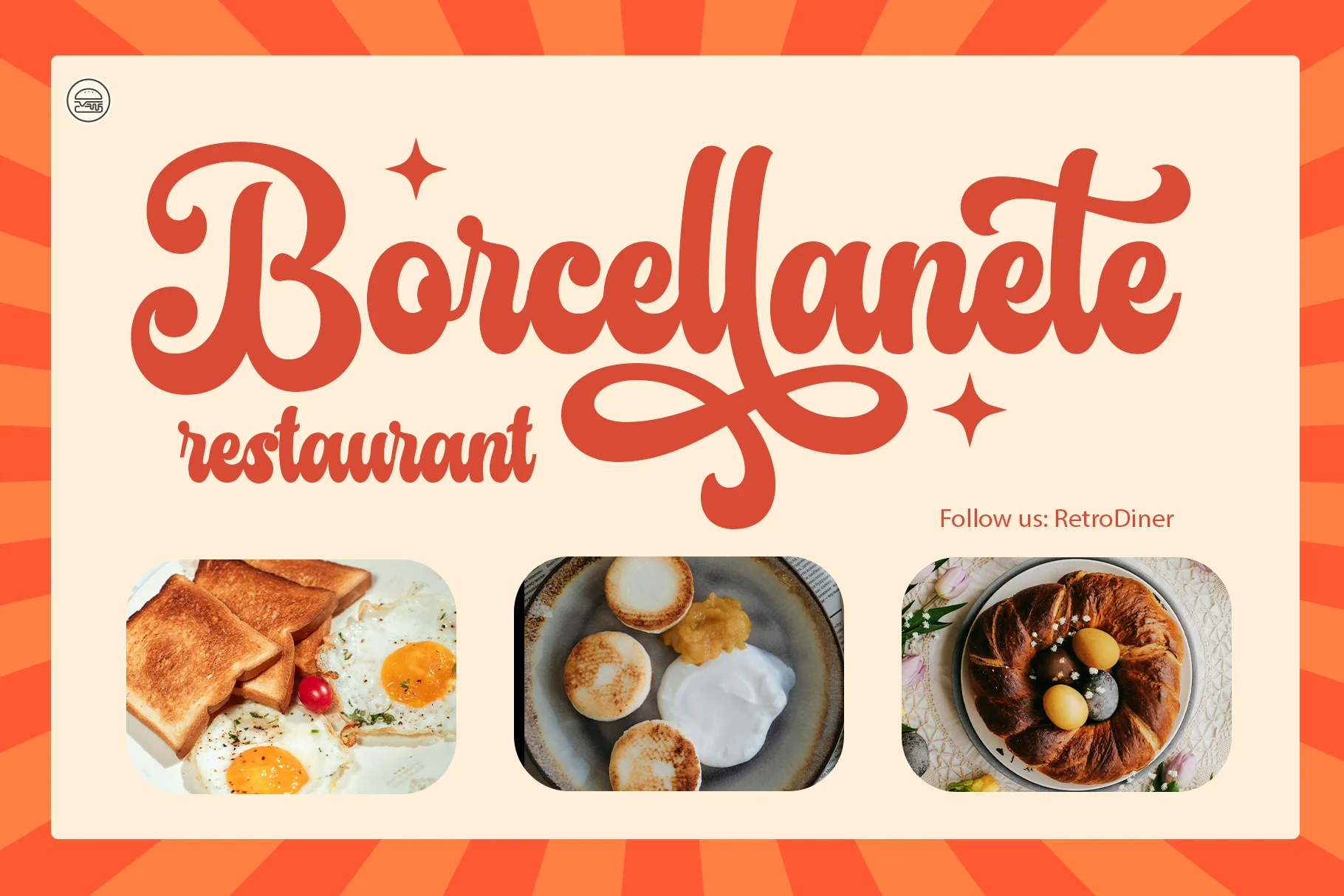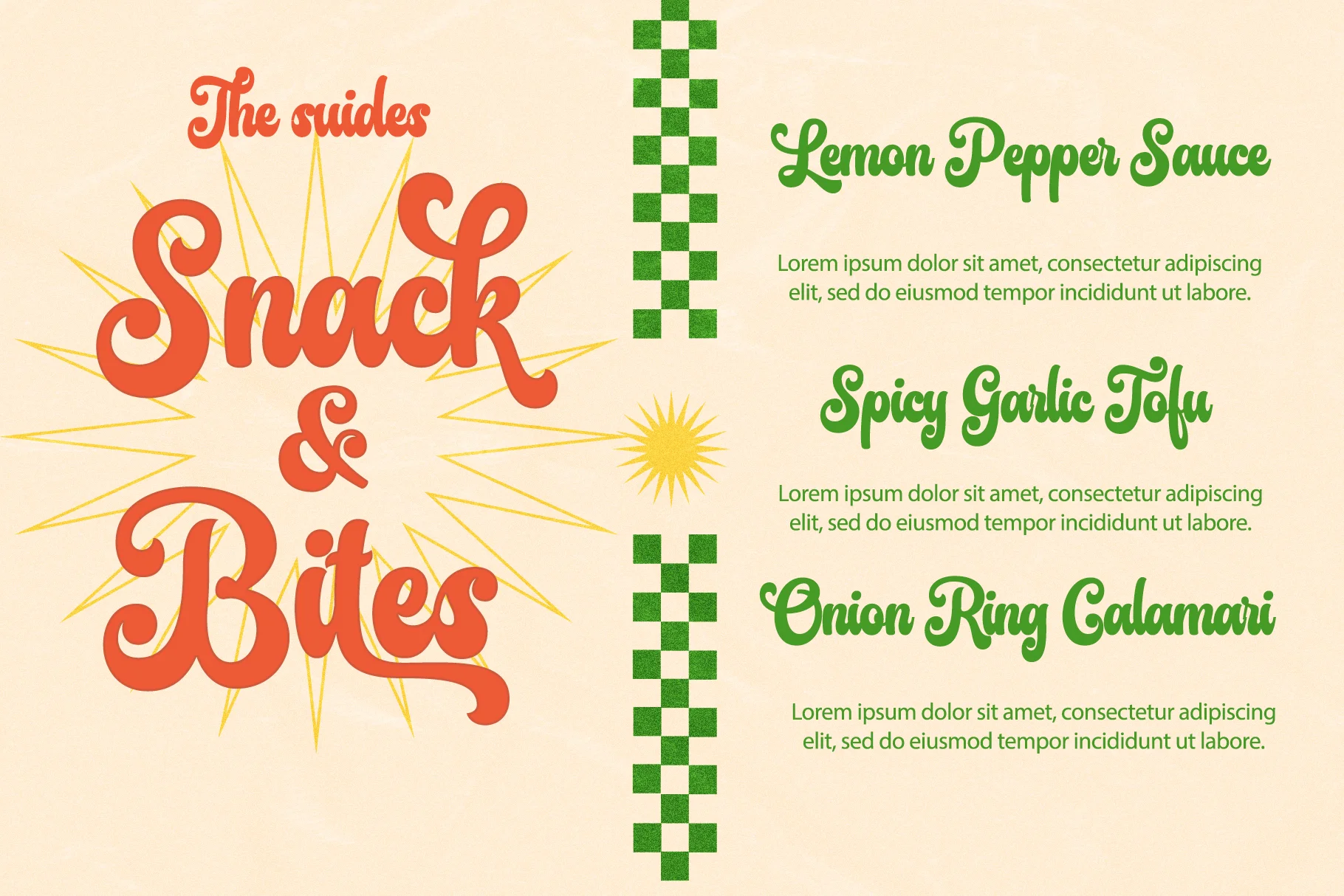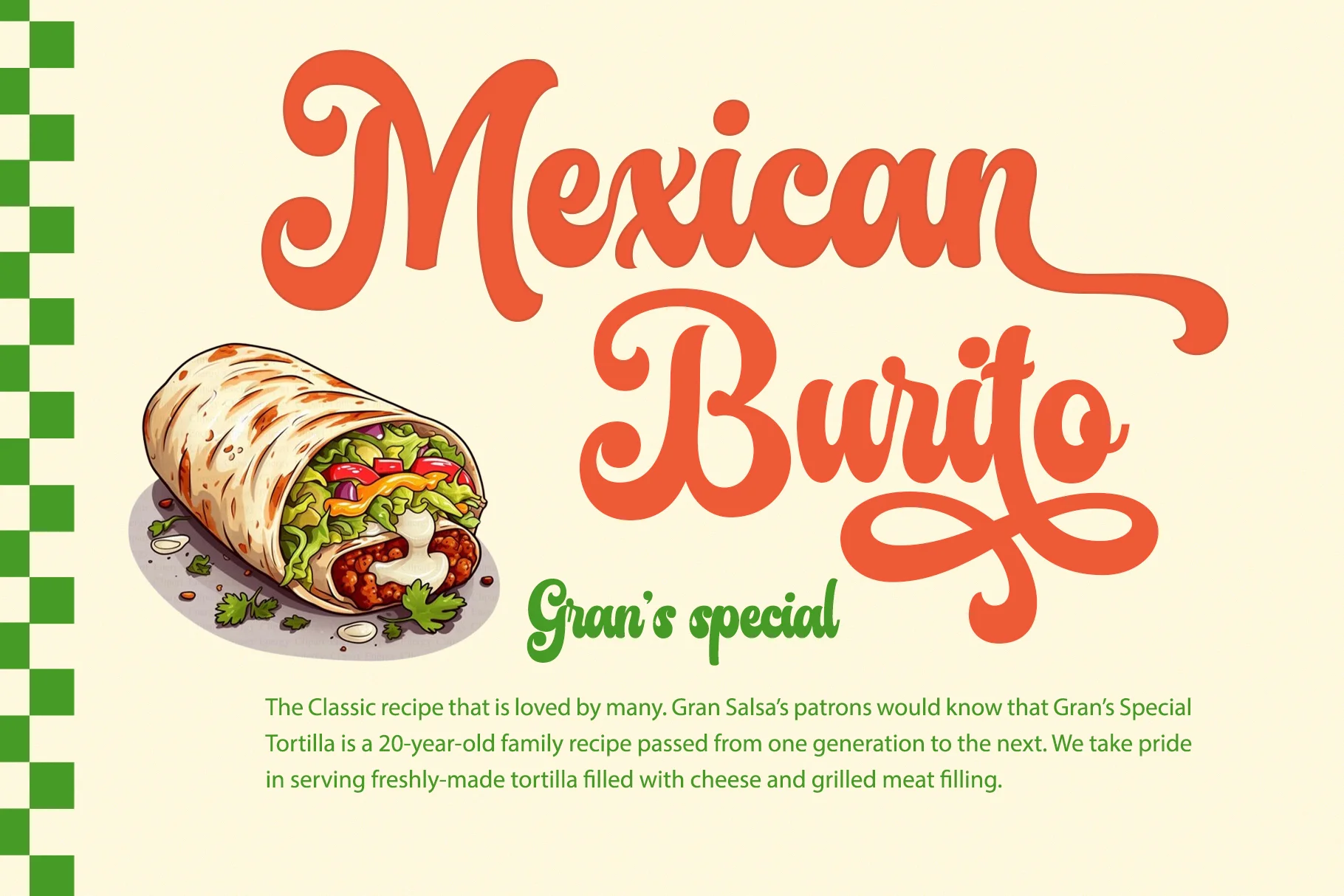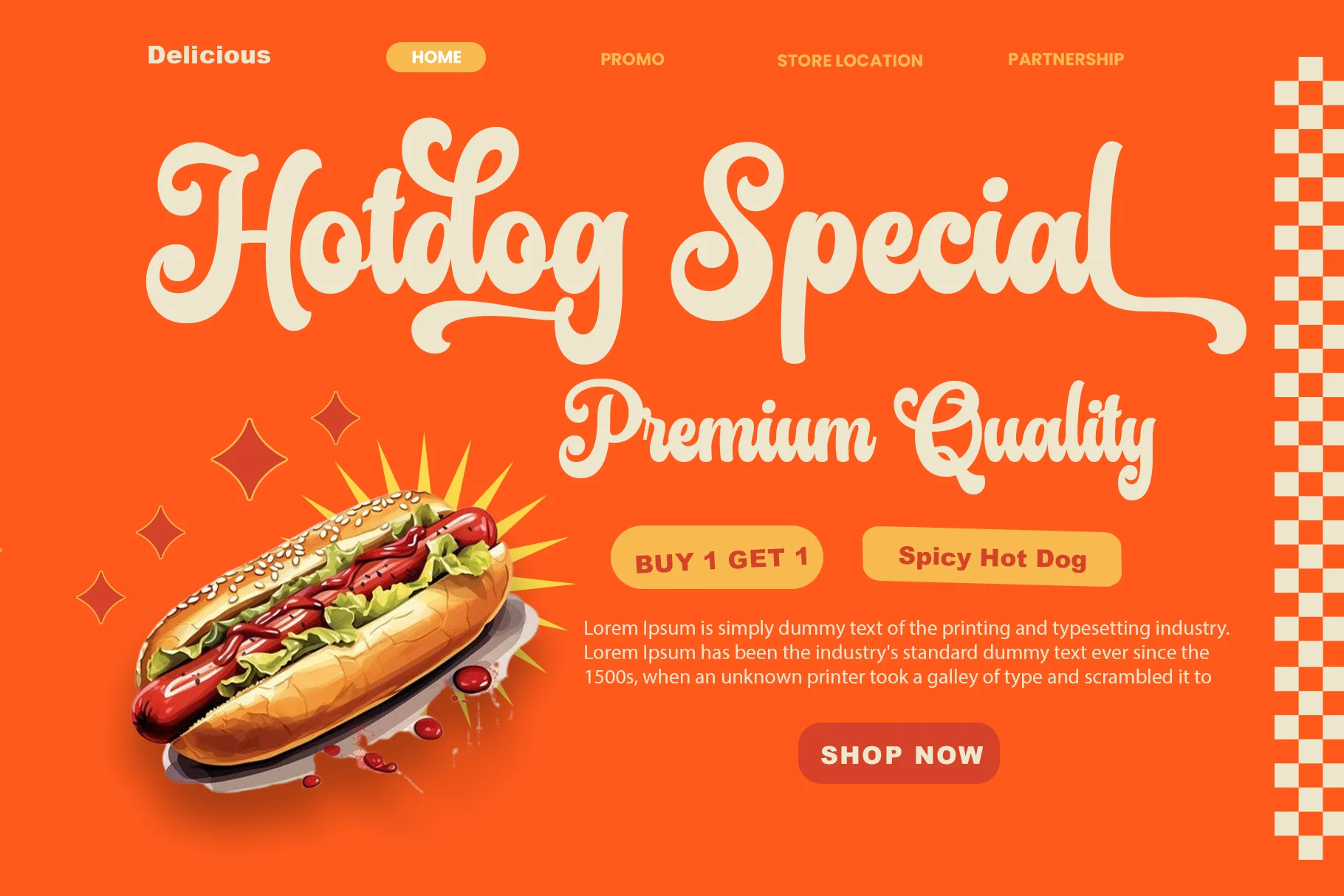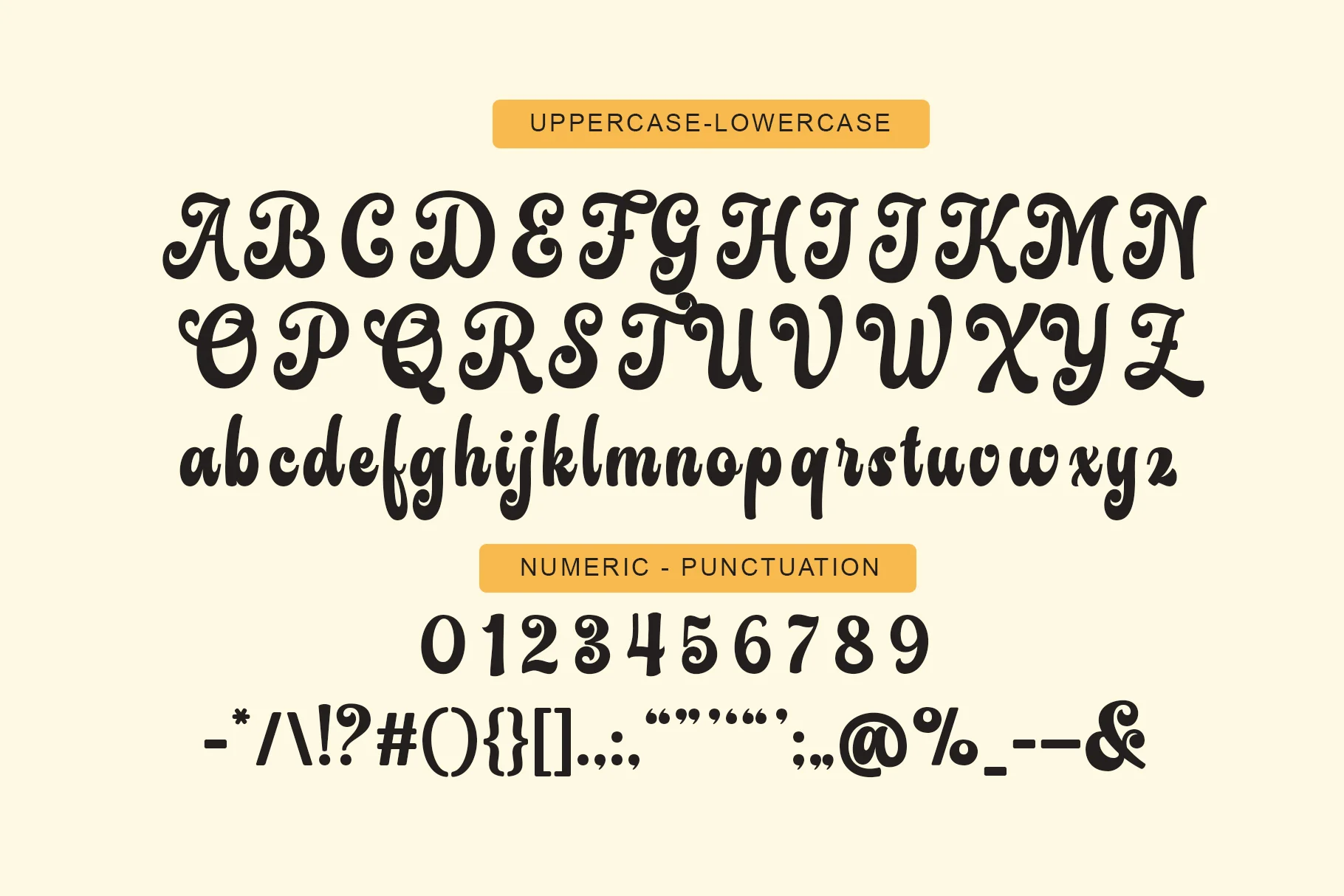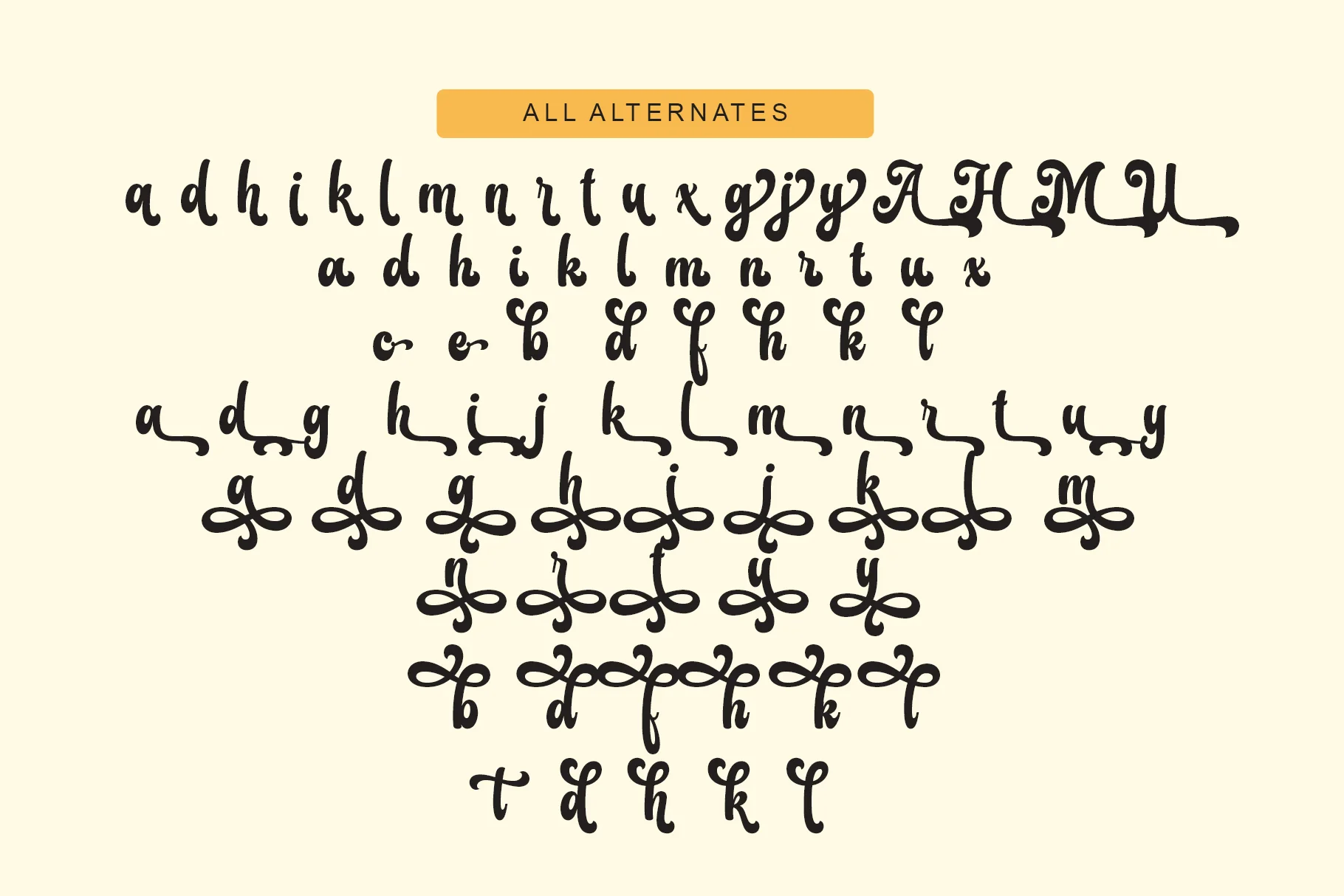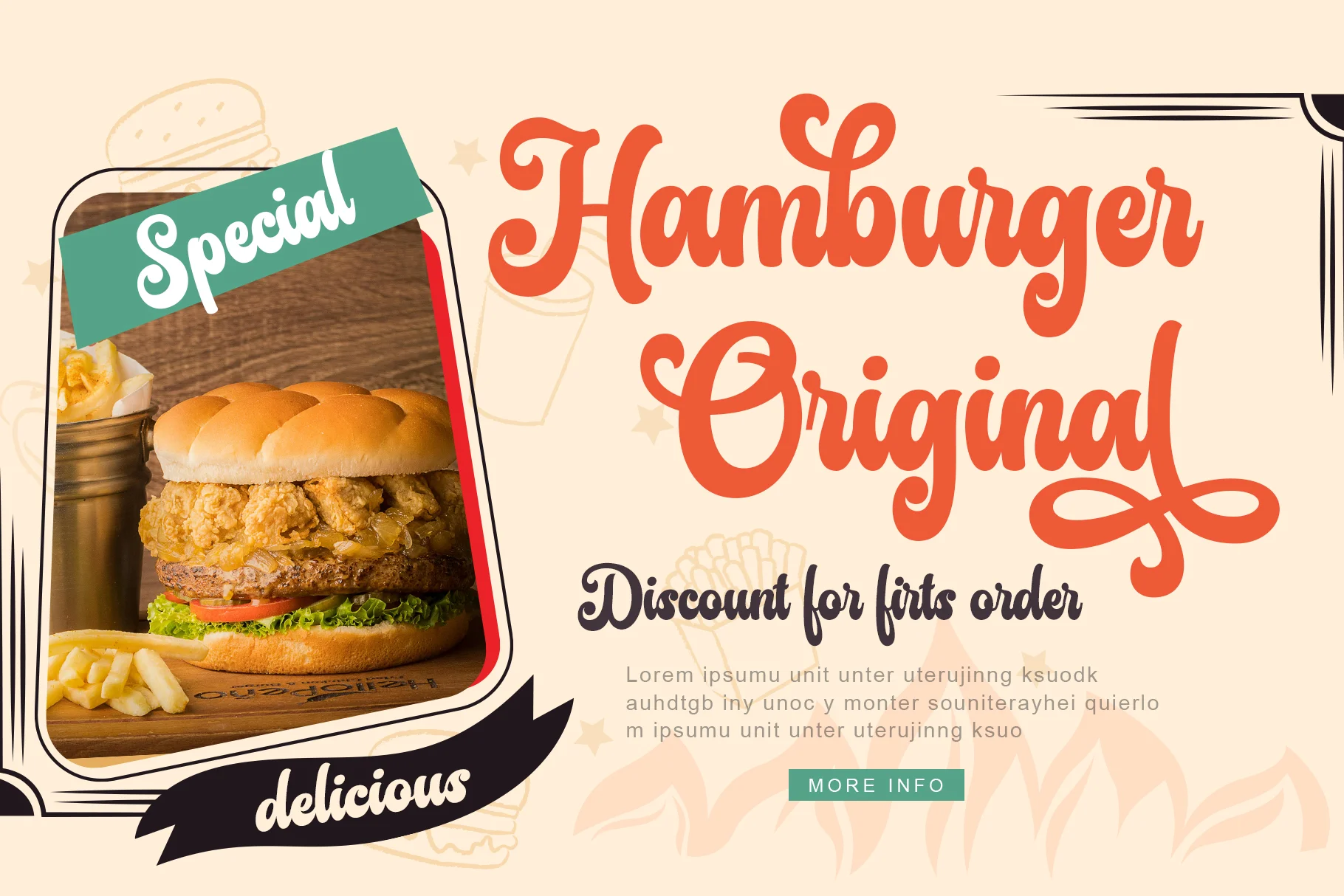
Farliye
Farliye is a bold, flowing fancy script typeface with a retro-glamorous aesthetic. This font is ideal for designers looking to add a bold, nostalgic, and dynamic touch to their projects, supported by alternate stylistic features for unlimited creativity.
It is perfectly suited for food/beverage product branding (especially vintage-themed ones), merchandise design (t-shirts, mugs), music posters, logos, and packaging that aims for a cheerful, bold, and nostalgic look.
Features
- Uppercase and Lowercase – Complete range of letter cases for diverse uses.
- Numerals – Includes numbers for various creative needs.
- Functional – Designed for efficiency and aesthetic appeal.
- Multilingual Support – Includes characters for multiple languages.
- Stylistic Variations – Offers creative style options.